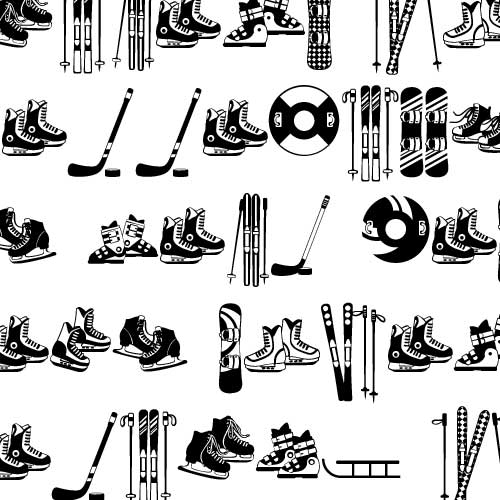
DB Winter Holiday Sports - DB
This fun doodlebat font features 26 different winter sports items, from skis, snow boards, tubes, sleds, skates, and hockey. Use for cards, gifts, crafts, planner stickers, scrap book pages and more!ts